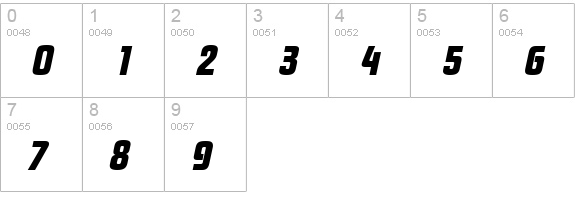
PloverBlack Italic Font Details
PloverBlack Italic is a distinctive, italic variant in the PloverBlack typeface family \xE2\x80\x94 well suited to design and typography projects.
PloverBlack Italic is a sleek and modern typeface that exudes sophistication and elegance. The italicized design adds a touch of flair and style to any project, making it perfect for both professional and creative purposes. With its clean lines and sharp angles, PloverBlack Italic commands attention and leaves a lasting impression. This versatile font is ideal for use in branding, marketing materials, invitations, and more. Whether you're looking to create a sleek and stylish logo or add a touch of sophistication to your website, PloverBlack Italic is sure to elevate your design to the next level. Best of all, PloverBlack Italic is available for free download at FontsMarket.com. This means you can easily access this stunning font and use it in your projects without any cost. Don't miss out on this opportunity to enhance your designs with the beauty and elegance of PloverBlack Italic. Download it today and see the difference it can make!